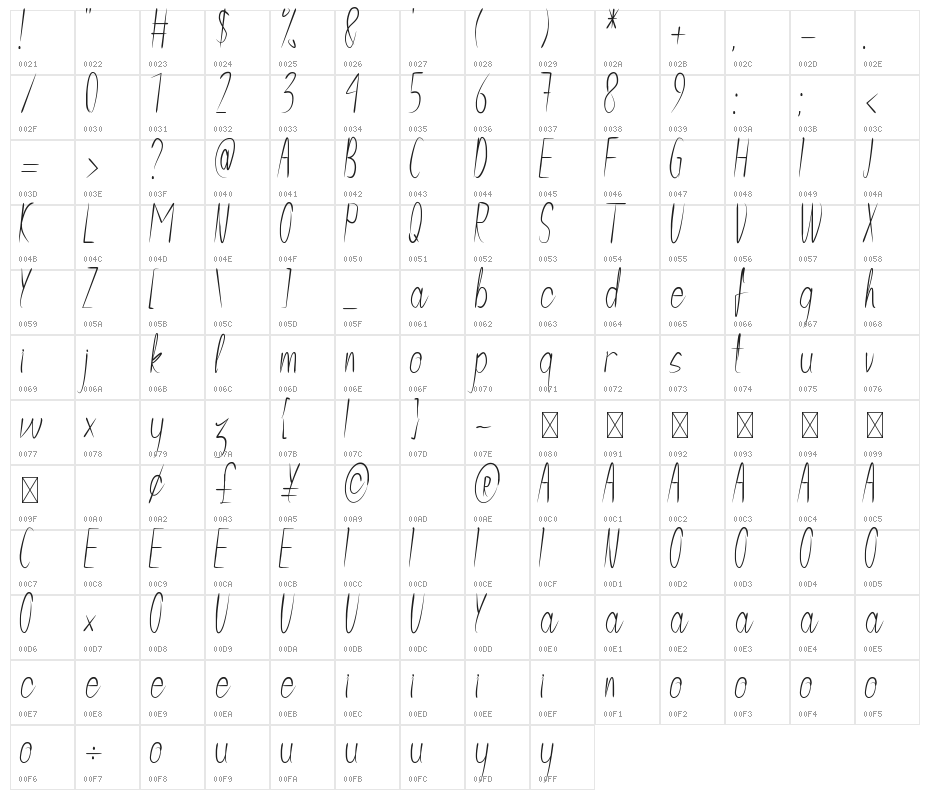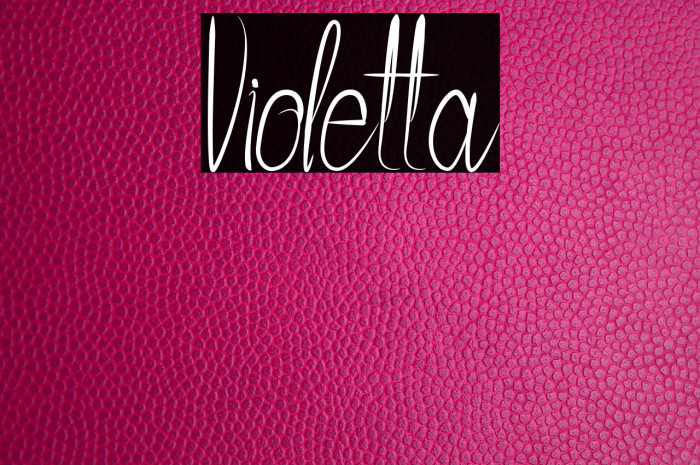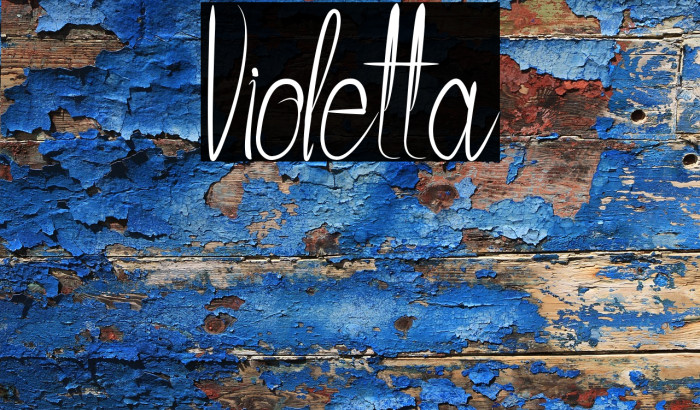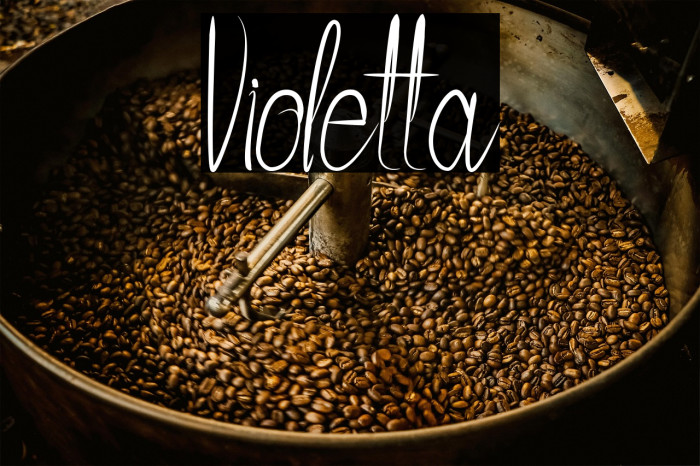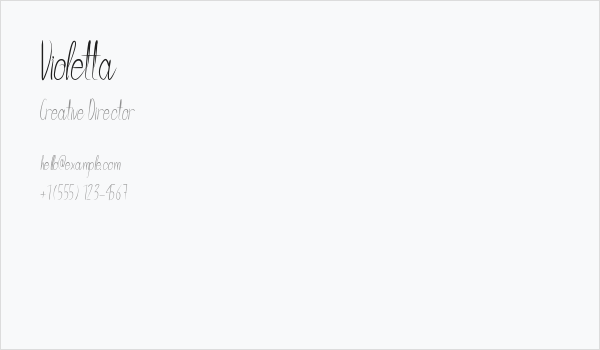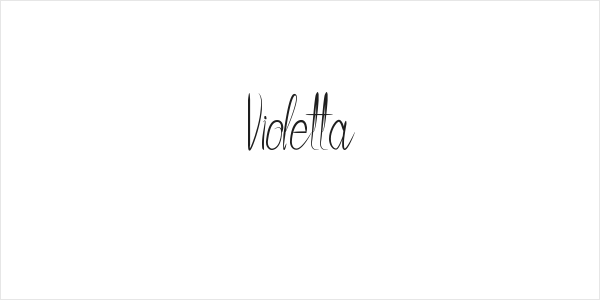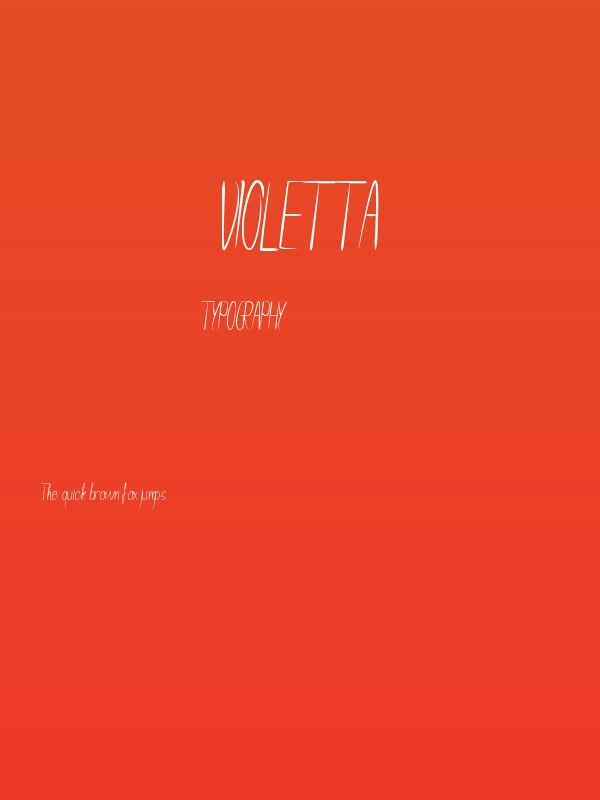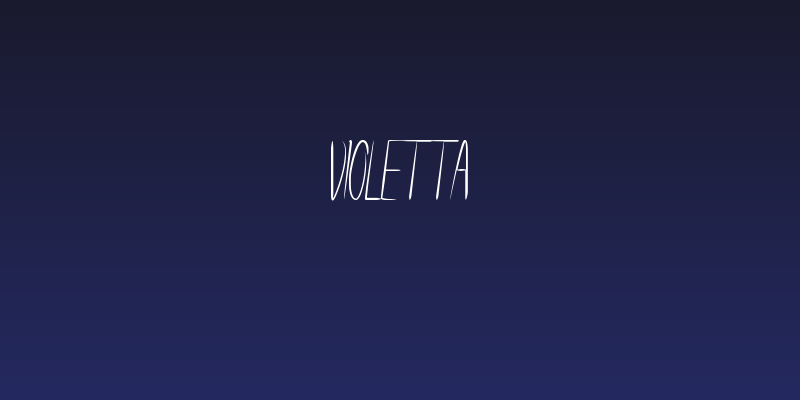
Violetta Font
Violetta Description
This font exhibits a unique, elegant style with a handwritten appearance. The letters are elongated and slender, featuring a distinct flow that mimics cursive handwriting. The strokes are thin and delicate, giving the font a graceful and sophisticated look. The uppercase letters are tall and narrow, while the lowercase letters maintain a consistent height, adding to the overall harmony of the design. The numerals and special characters follow the same aesthetic, ensuring a cohesive appearance across all elements. This font's refined and artistic nature makes it suitable for creative and expressive projects.
| Overall Style | Elegant, Artistic |
| Proposed Projects | Ideal for wedding invitations, personal branding, artistic projects, and elegant packaging designs. |